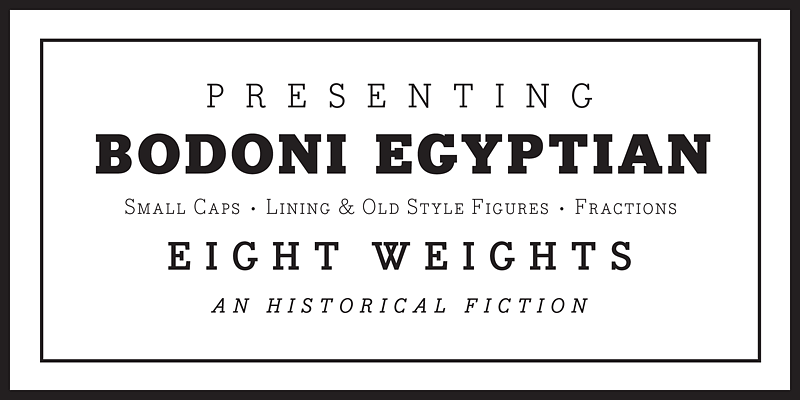
Bodoni Egyptian Pro Font Free Download
Bodoni Egyptian Pro Font Free Download is a unique and stylish slab serif typeface that merges the elegance of Bodoni with the bold, grounded feel of Egyptian-style fonts. With its high contrast strokes, sharp serifs, and strong structure, this font is ideal for editorial headlines, luxury branding, poster design, and any project that demands a blend of refinement and authority.
What makes Bodoni Egyptian Pro stand out is its ability to convey both sophistication and impact. It combines classical typographic beauty with a sturdy presence, making it suitable for high-end fashion, art publications, and premium product packaging. The font's dramatic serif details and balanced proportions make your text visually striking while preserving readability.